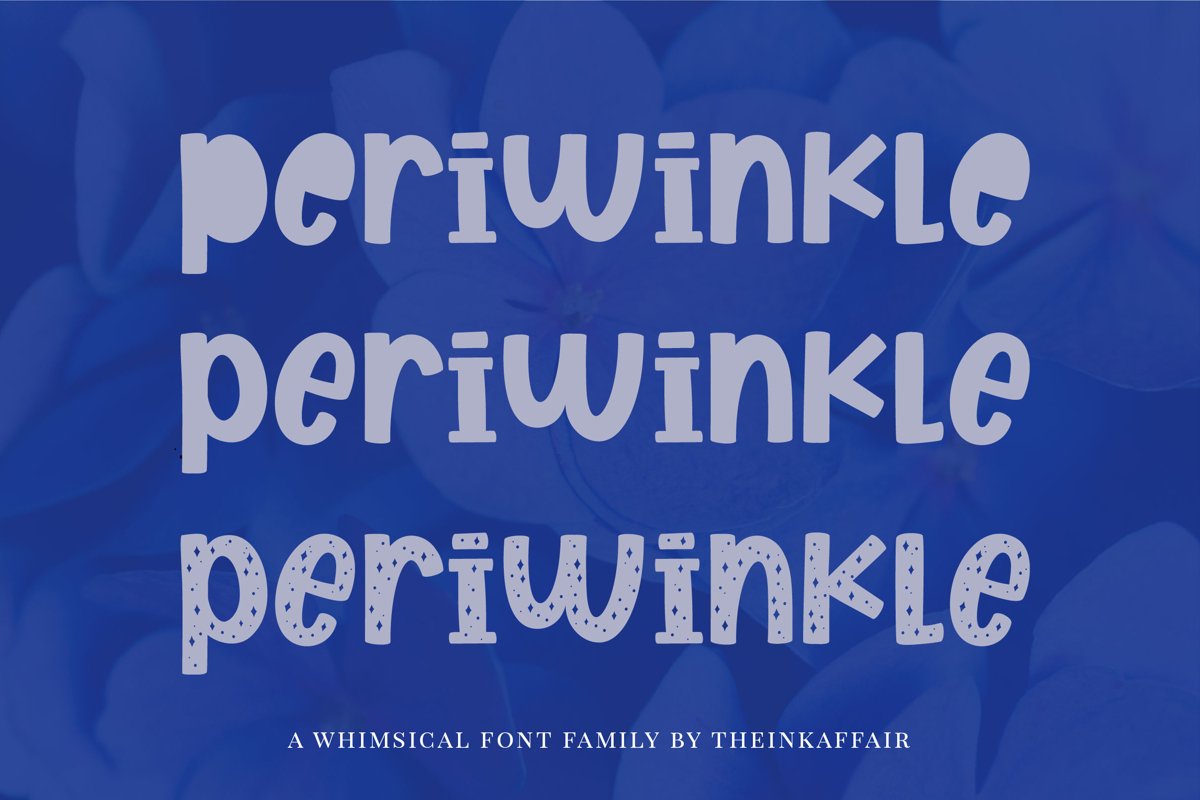
Introducing a playfully whimsical font, Periwinkle that comes in three styles: Regular, Solid and Filled. It's perfect for cricut/silhouette projects and all design projects from logo, branding to quotes, invitations etc. What's included:
Periwinkle
Periwinkle Solid
Periwinkle Filled